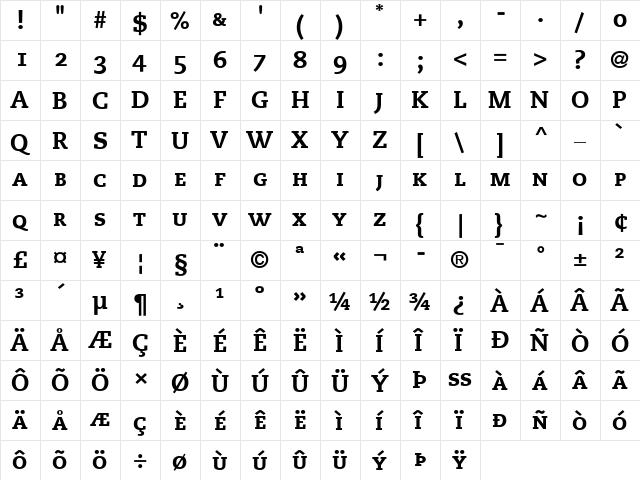
Caecilia RomanSC Bold Font Preview
Caecilia RomanSC Bold
Caecilia RomanSC Bold Font Details
Design Context for Caecilia RomanSC Typeface
Caecilia RomanSC takes a measured approach to typography — its balanced proportions and neutral character make it a reliable workhorse for both digital and print work. Its bold stroke weight gives it real presence on the page.